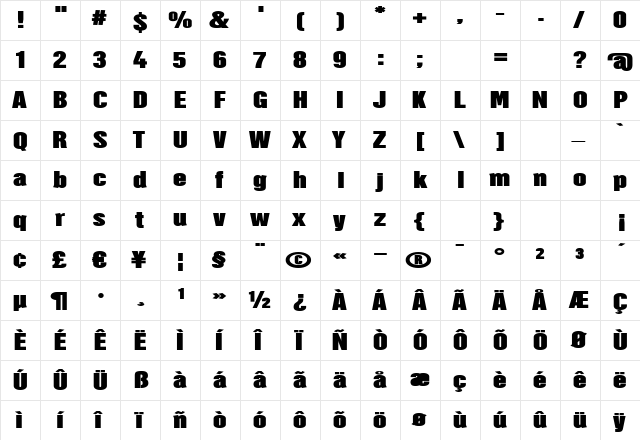
Hector BoldExtended
Design Context for Hector Typeface
Hector takes a measured approach to typography — its balanced proportions and neutral character make it a reliable workhorse for both digital and print work. Its bold stroke weight gives it real presence on the page.